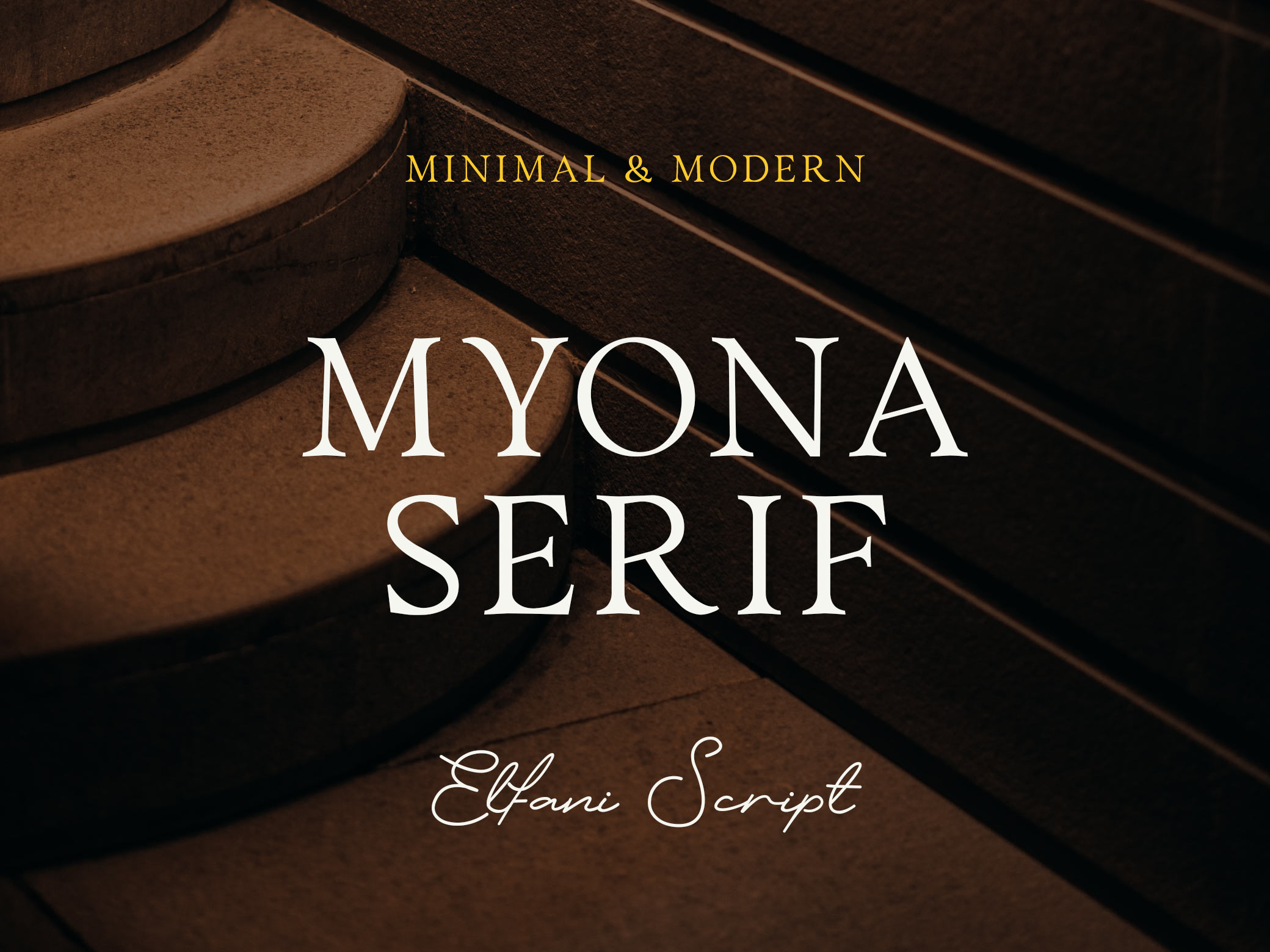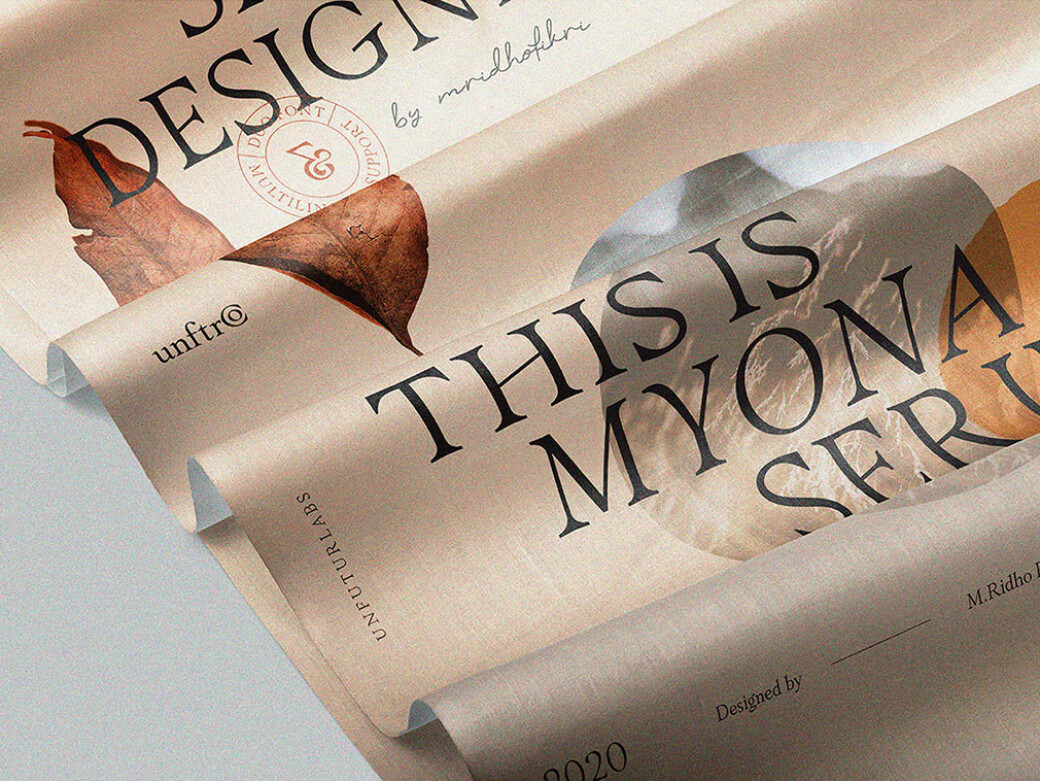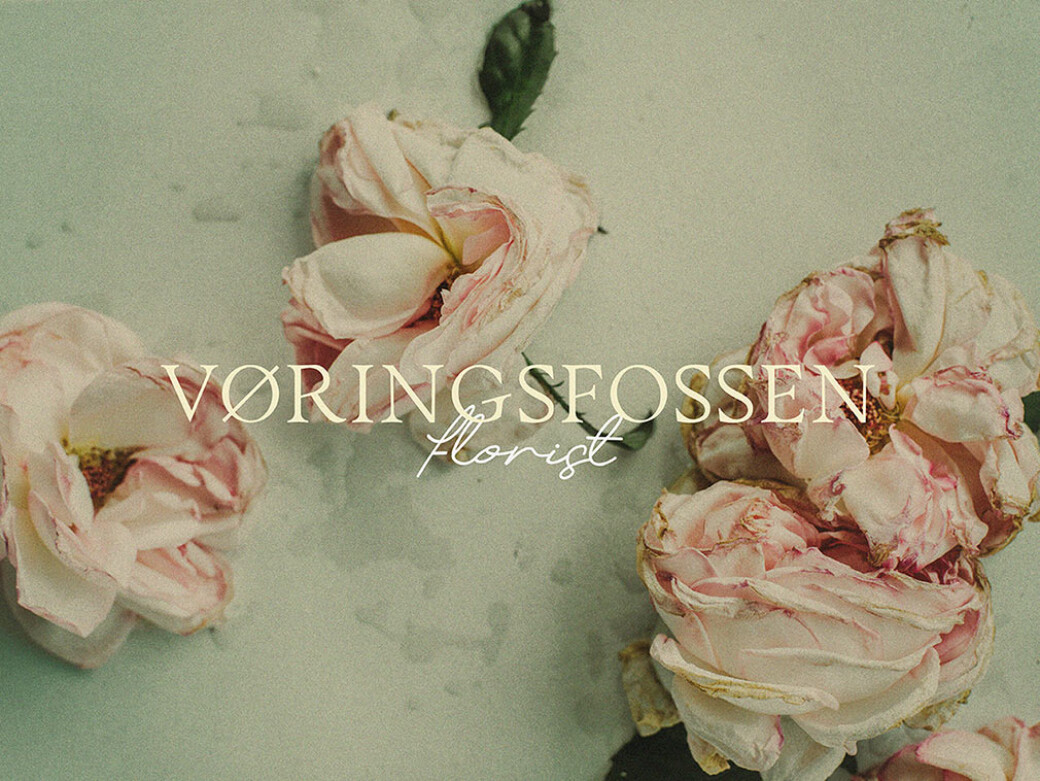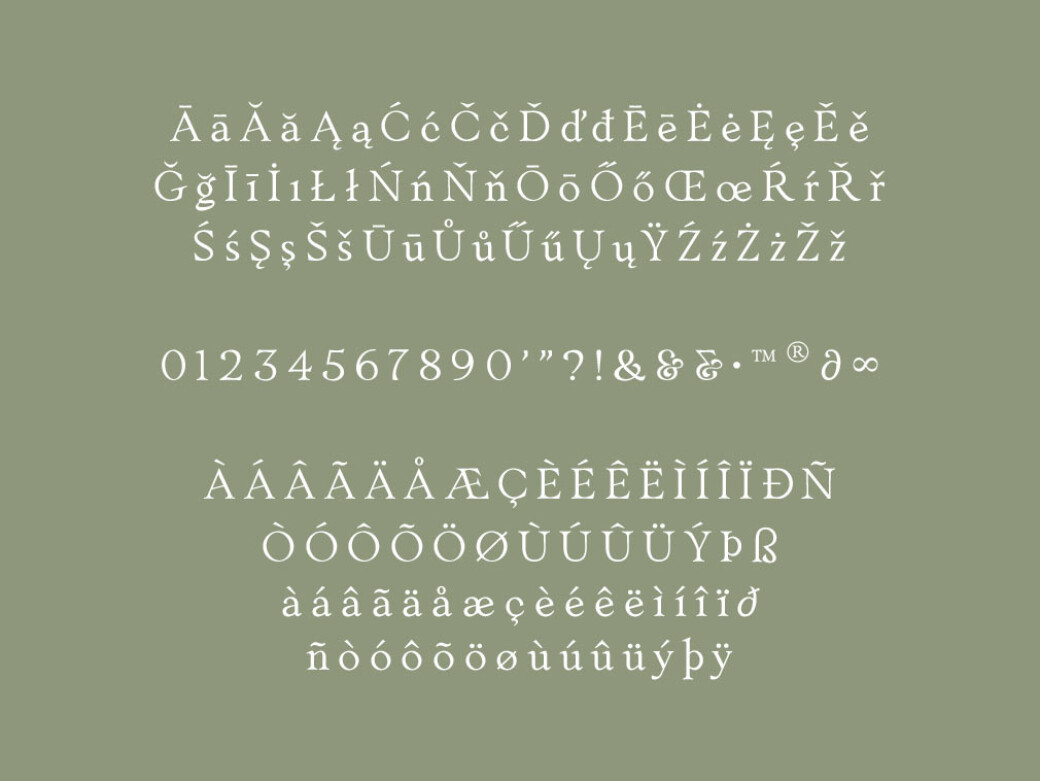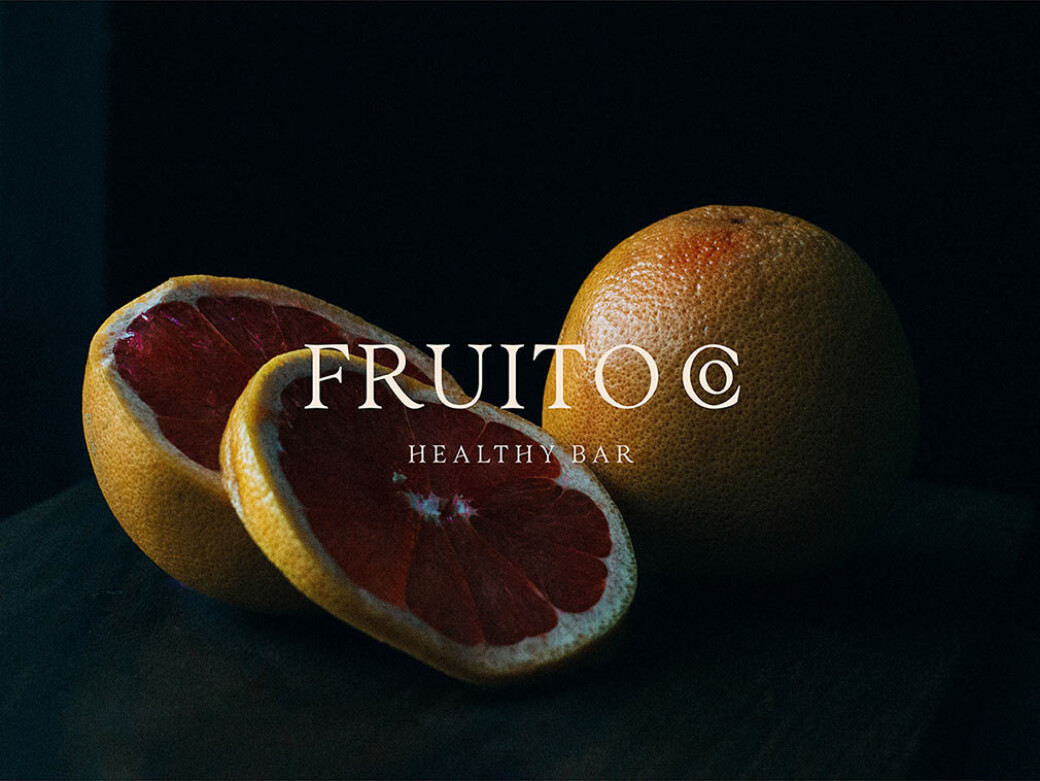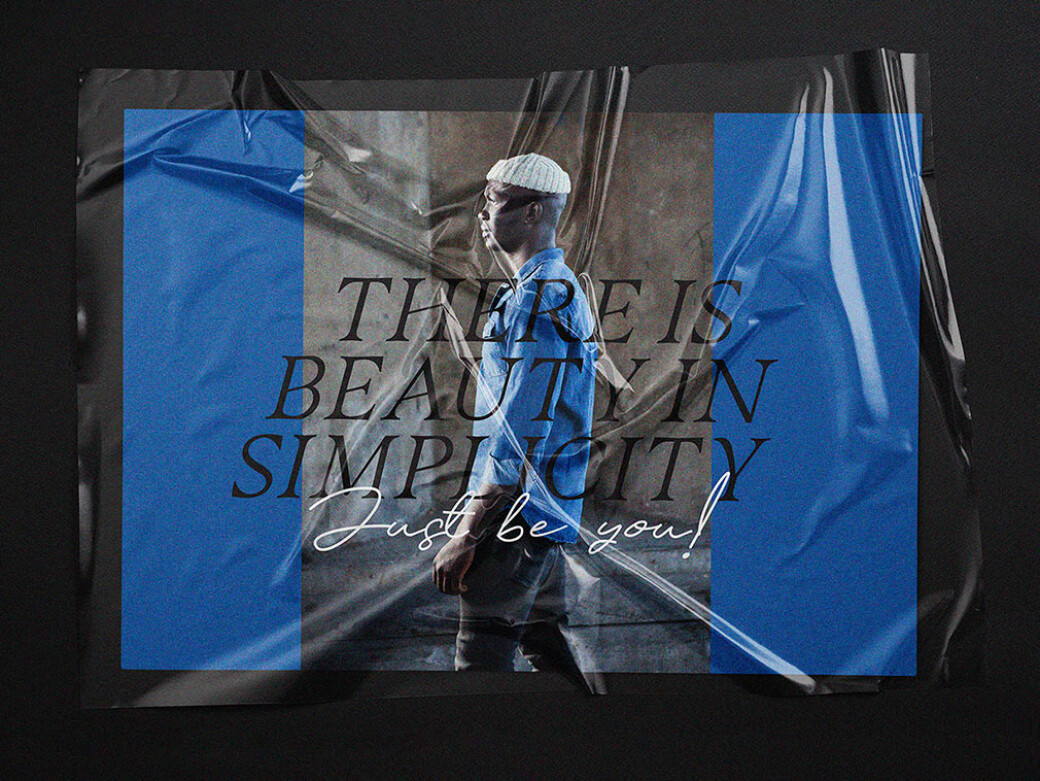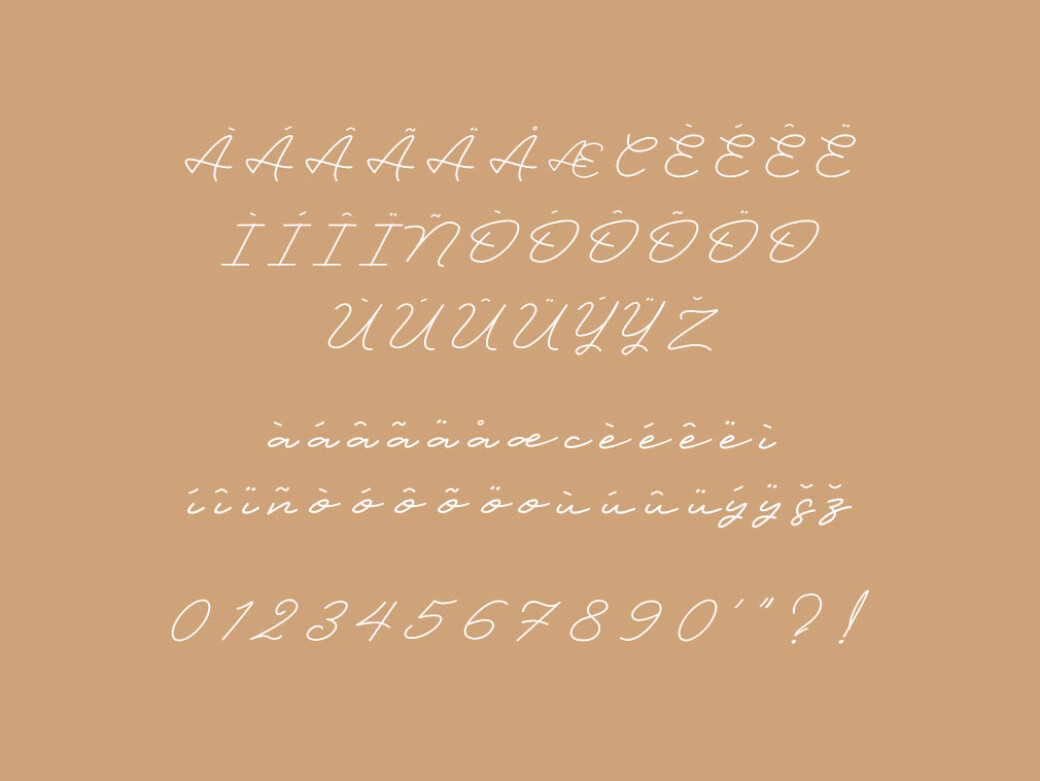
Myona Serif & Elfani Script Fonts
Meet minimal & elegant fonts inspired by the combined old-fashioned and semi-modern looks. Take the show to the next level with additional Insta story templates!Get your luxurious, minimal and modern design look with this Myona Serif and Elfani Script Fonts. Both typefaces contain upper & lowercase characters, ligatures, glyphs and language support. Crafted especially for you who looking for additional design elements and font collections! It's suitable for logo, packaging design, menu, wedding invitation, bumper opening video and many more. And one more special thing is 5 Instagram story templates to complement the final result and share it with your subscribers!